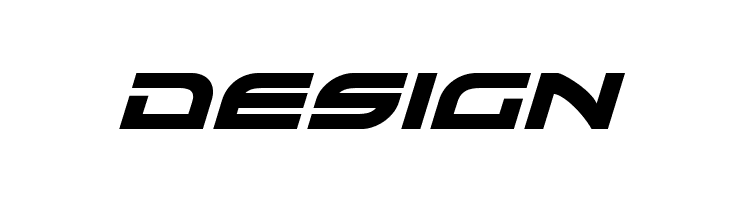
Rosign Bold Italic Font
- Font: Rosign Bold Italic
- Weight: Bold Italic
- No. of Characters:: 286
( Fonts by Iconian Fonts - Daniel Zadorozny )
A bold, futuristic font with geometric shapes and sharp angles.